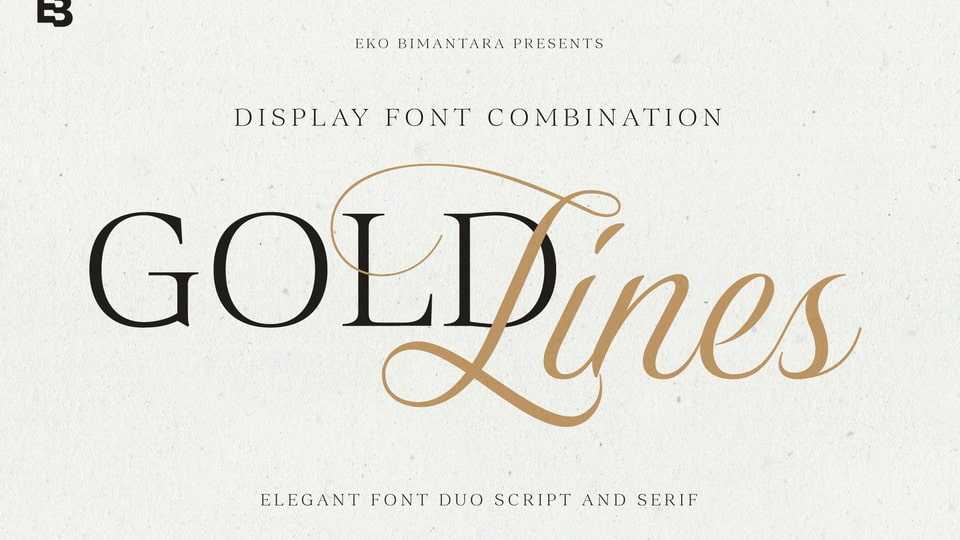
Download Gold Lines font, an enchanting typeface consisting of a graceful script and a timeless serif. This elegant pairing exudes beauty, charm, and a touch of luxury that will captivate any audience.